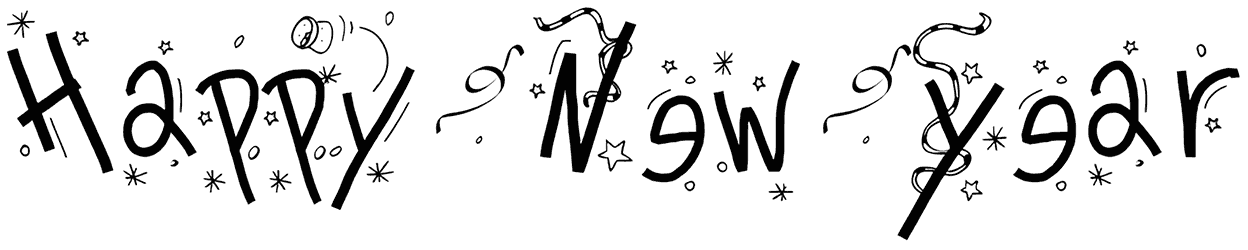
PW Happy New Year Font
We strongly offer you to add a holiday font, such as PW Happy New Year, to your creative ideas like invitations, flyers, menus, packaging, and social media posts to notice how it makes them stand out alongside their counterparts.
In addition to its main characteristic, this typeface has a handwritten touch, so it can share a sense of personalization, dynamic, jauntiness, and innovation with the customers and satisfy them with the quality of your artwork.